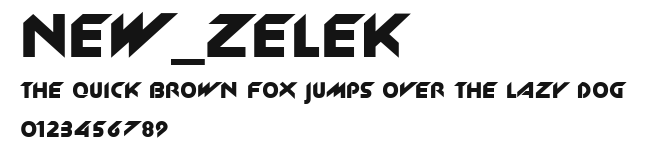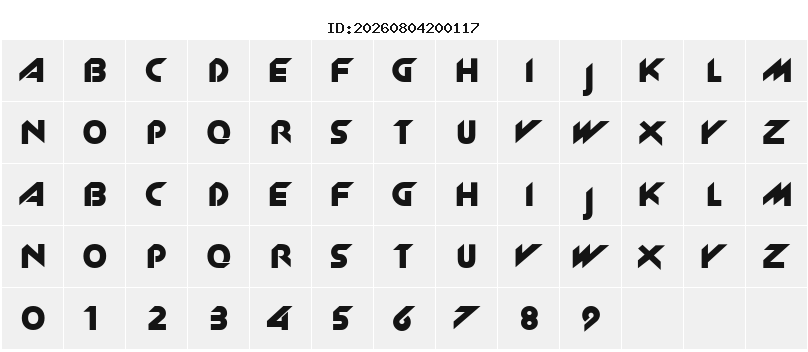
New_Zelek Preview
• Font Name: New_Zelek
• Full Font Name: New_Zelek
About New_Zelek.ttf
New_Zelek.ttf is a modern, elegant sans-serif font designed for ultimate readability and visual harmony. Perfect for branding, headlines, web design, and print materials.